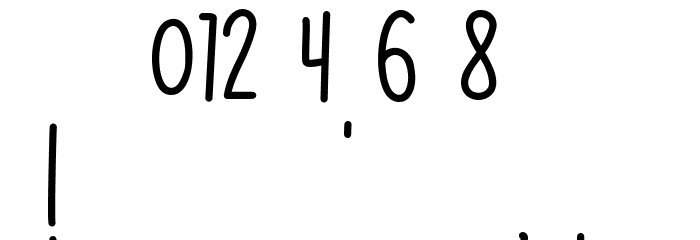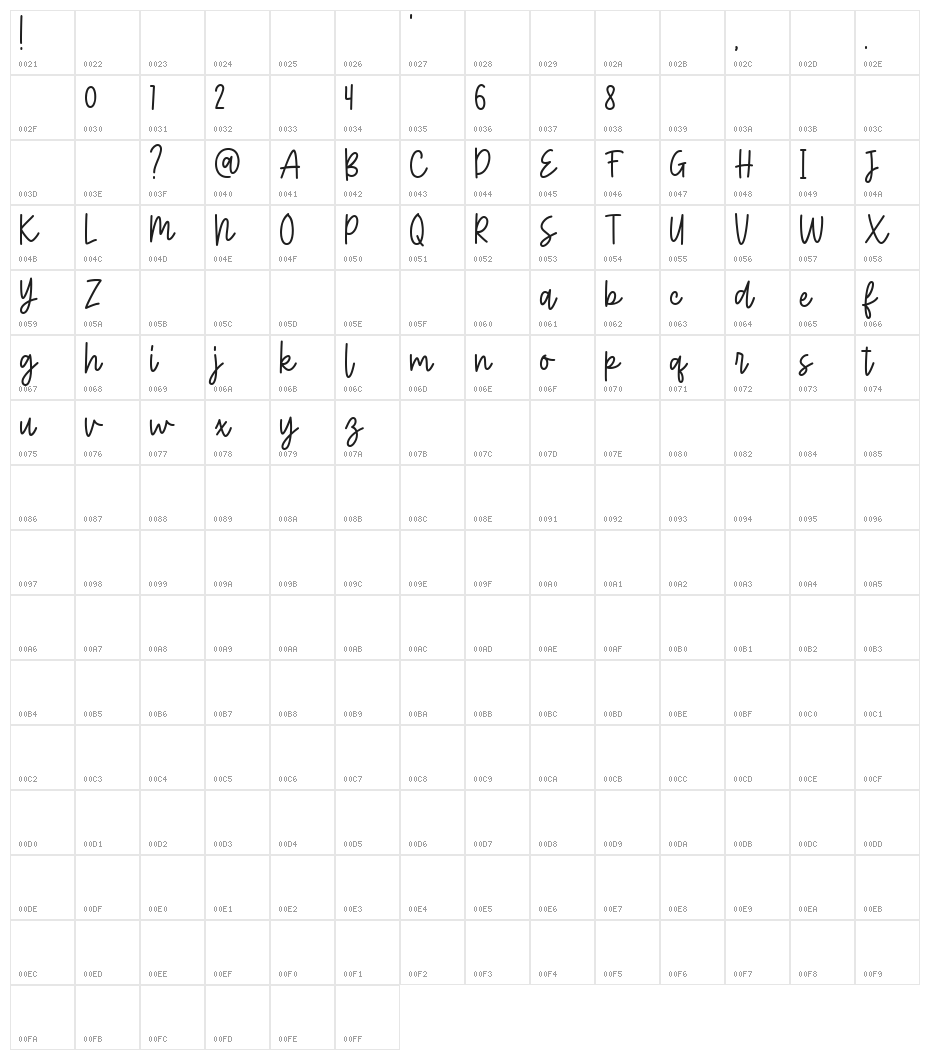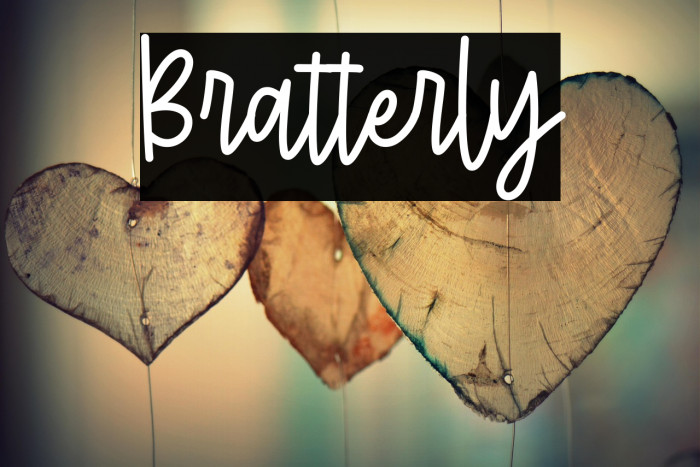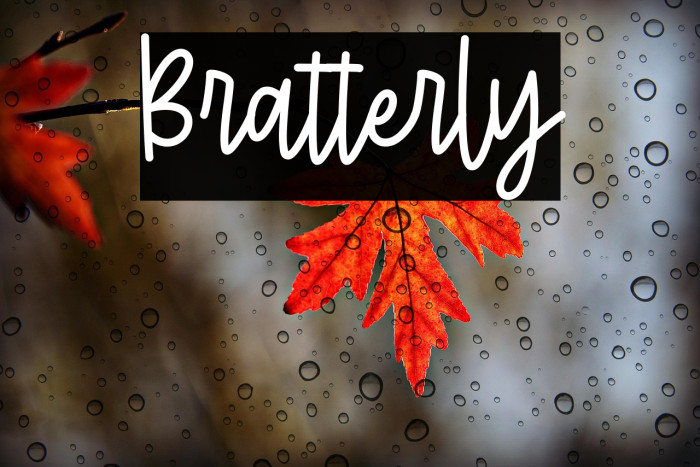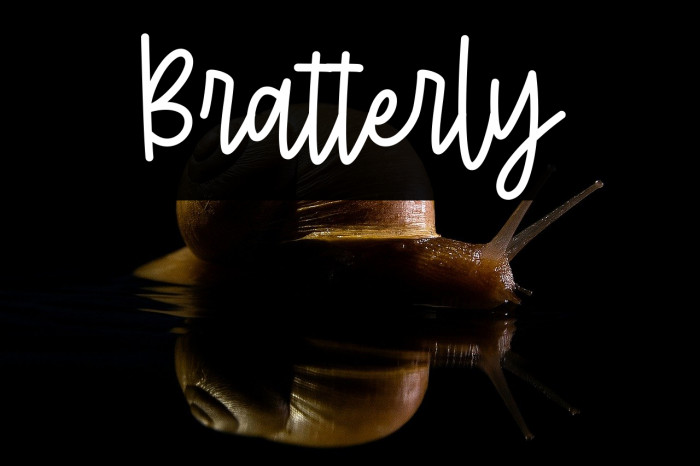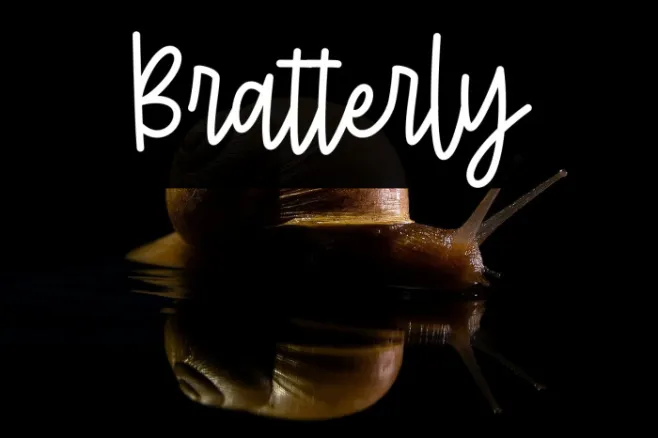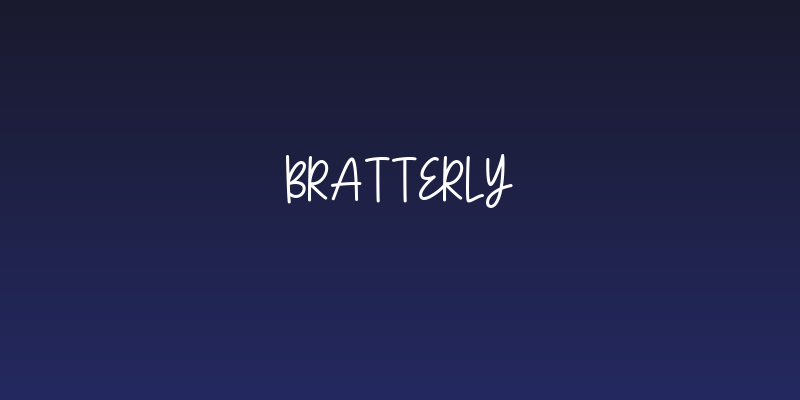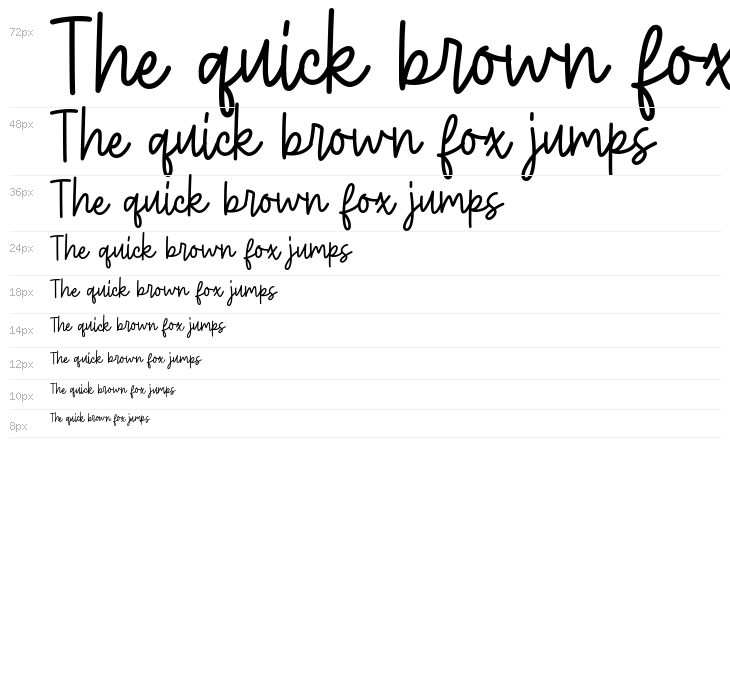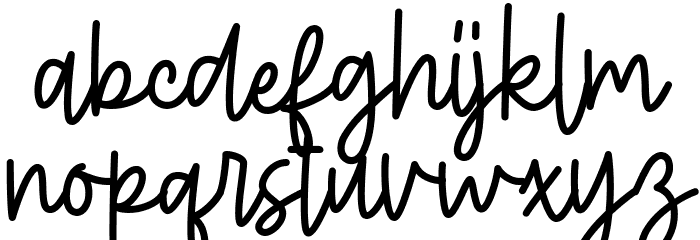
Bratterly Font
Bratterly Description
This font features a playful and casual handwritten style, characterized by its smooth, flowing lines and slightly irregular letterforms. The uppercase letters are tall and narrow, giving a sense of elegance and modernity, while the lowercase letters maintain a consistent baseline with gentle curves. The numbers are rounded and easy to read, complementing the overall aesthetic. Special characters are integrated seamlessly, maintaining the font's cohesive appearance. The font's informal yet stylish nature makes it suitable for a variety of creative projects.
| Use Case | Logos, Invitations, Social Media Graphics |
| Proposed Projects | Ideal for greeting cards, invitations, social media graphics, and branding projects that require a personal touch. |